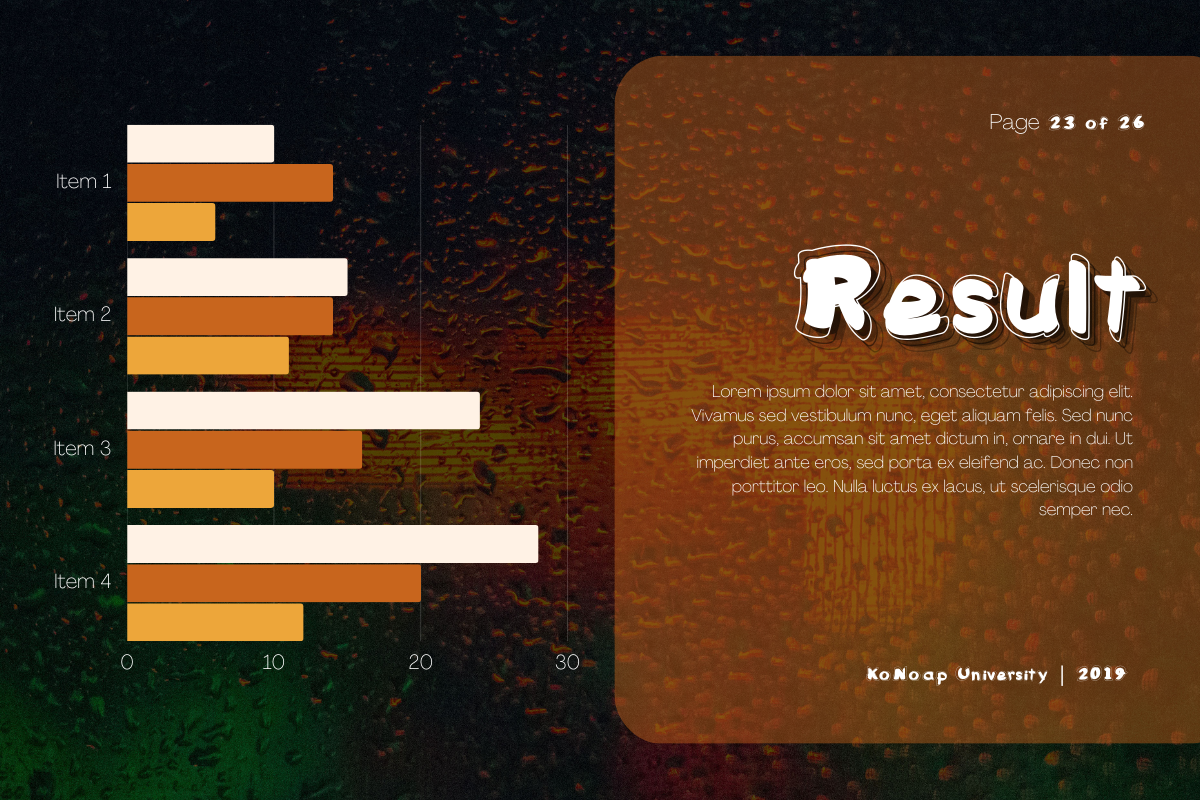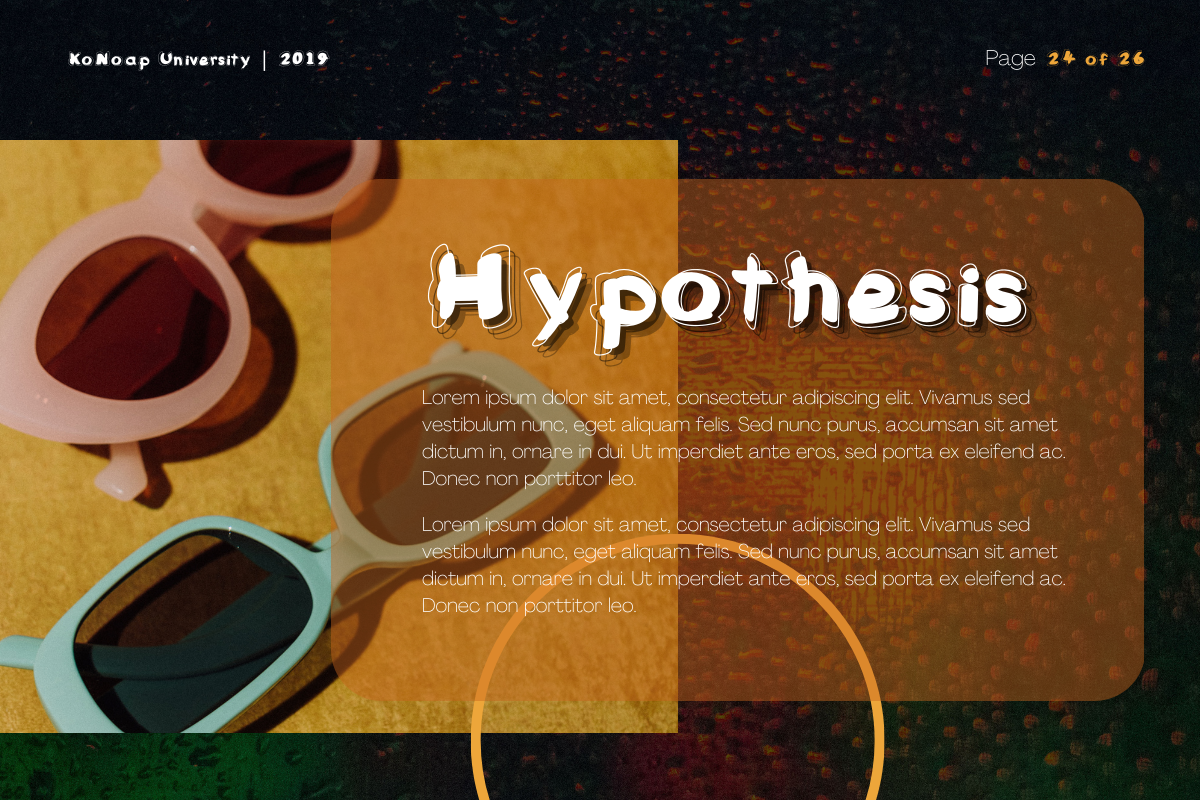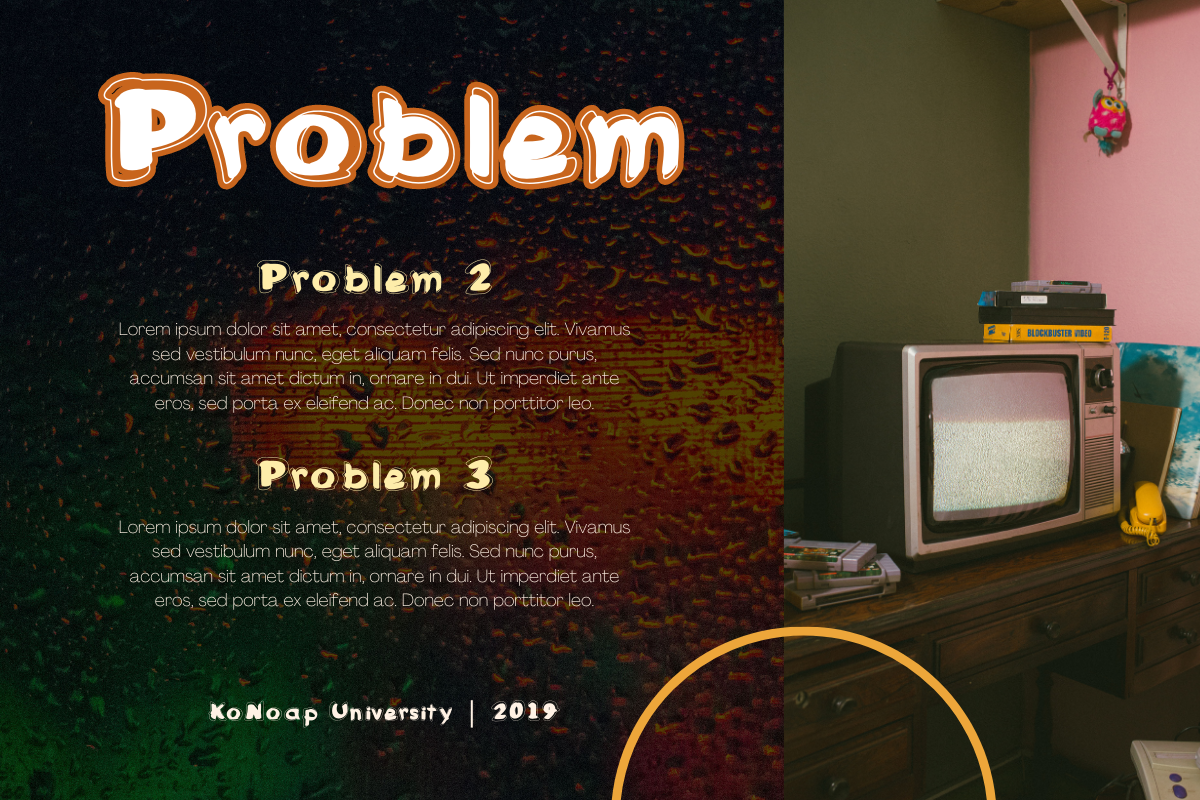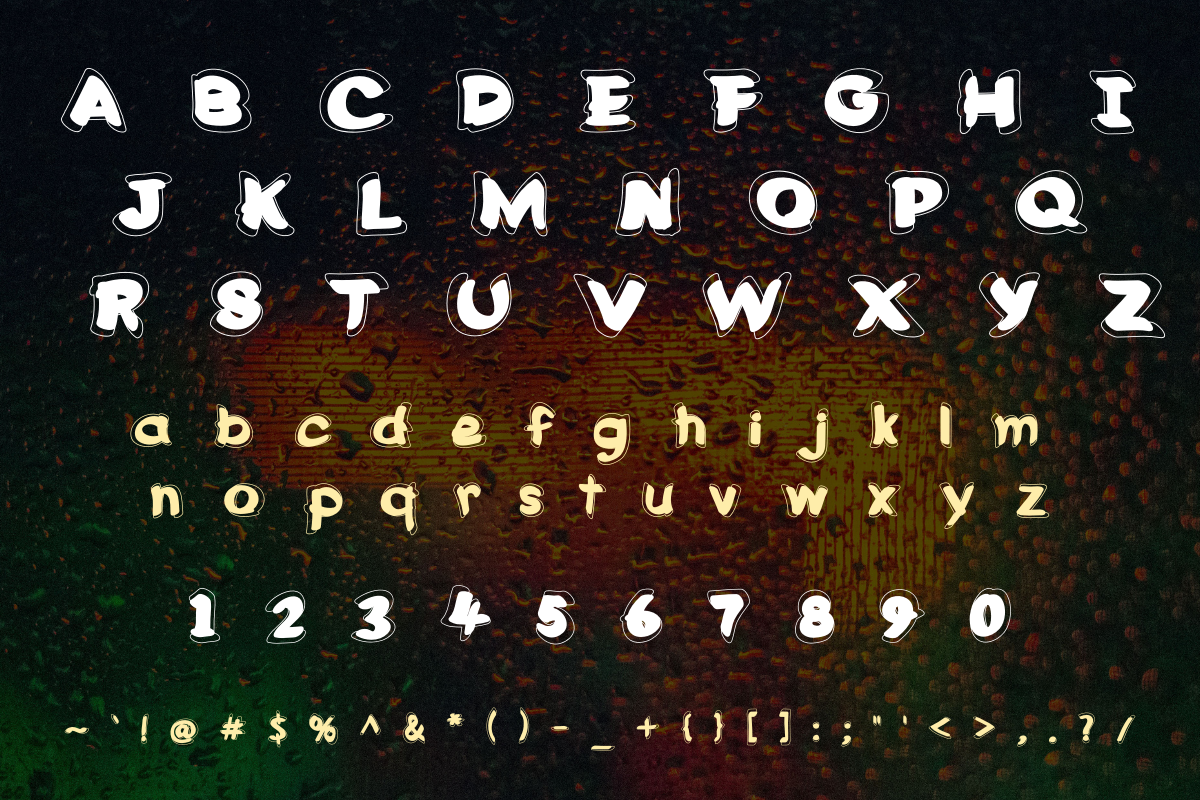
Thickairy
Thickairy: this is my font. A handwritten font. Very suitable for any design purpose like magazines, packaging, branding, posters, greeting cards, letterhead, and many more other creative project.